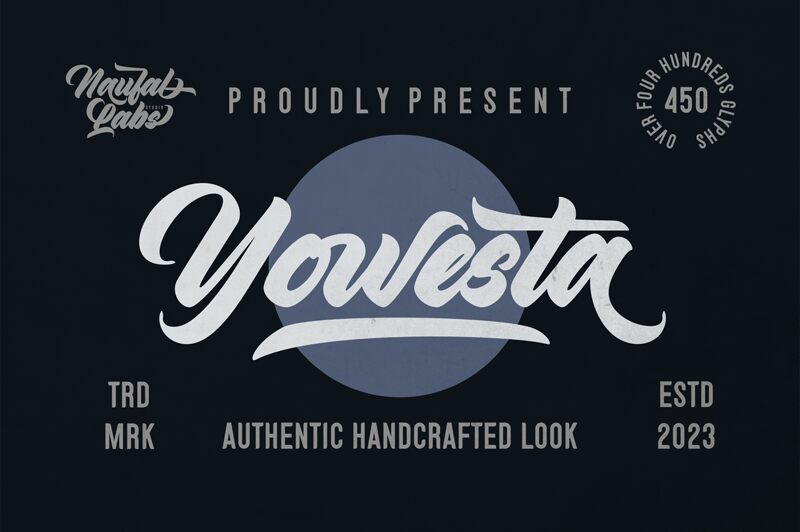
Yowesta, designed by Naufal Labs, is a bold brush script font brimming with personality and flair. Inspired by contemporary fashion and streetwear, Yowesta exudes a sense of modernity while embracing the art of hand lettering. Each curve is meticulously crafted to convey individuality and dynamism.
Its bold strokes make it a perfect choice for designs that demand attention and style. Ideal for branding projects, logo designs, apparel prints, and social media graphics, Yowesta adds a touch of elegance and audacity to any visual composition. This font effortlessly marries trendiness with artistic expression, making it an excellent tool for creatives seeking to make a statement.
Designed by MOH. MA'IN from Naufal Labs Studio in 2023.